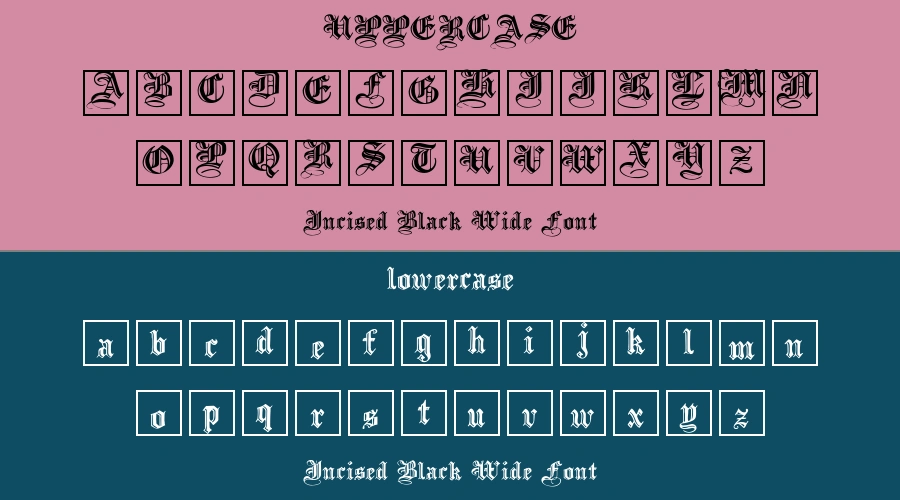
About Incised Black Wide Font
Designed with precision, Incised Black Wide Font merges rounded serifs with brand distinction in every character. This versatility makes it particularly effective for brand identities, where functionality and cultural significance directly impact communication quality. Each letterform demonstrates meticulous craftsmanship.
Technical excellence shines through elements like dramatic swashes and automatic fractions, enhancing typographic versatility. In editorial spreads settings, Incised Black Wide Font proves its worth through superior versatility. The thoughtful execution of spur details and research value ensures professional results.